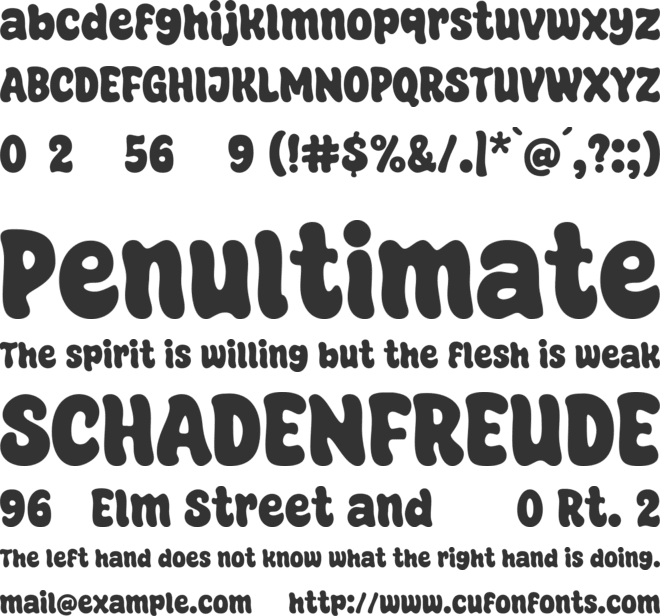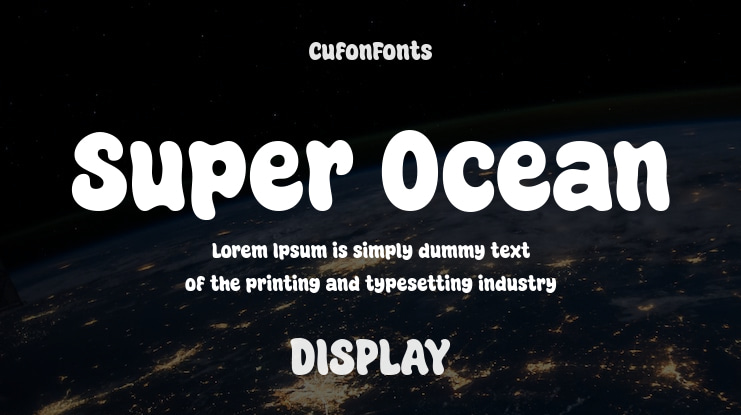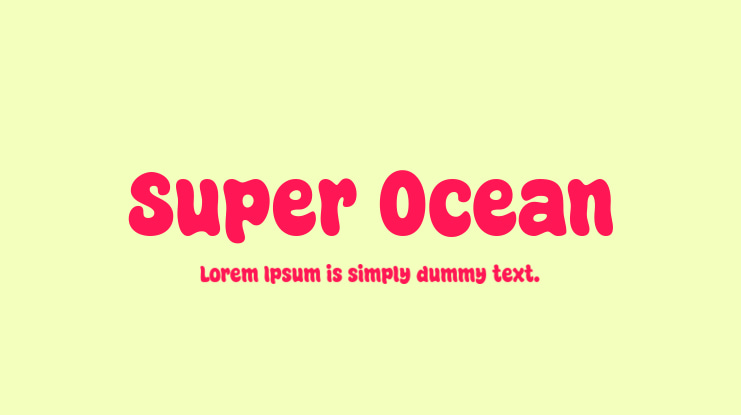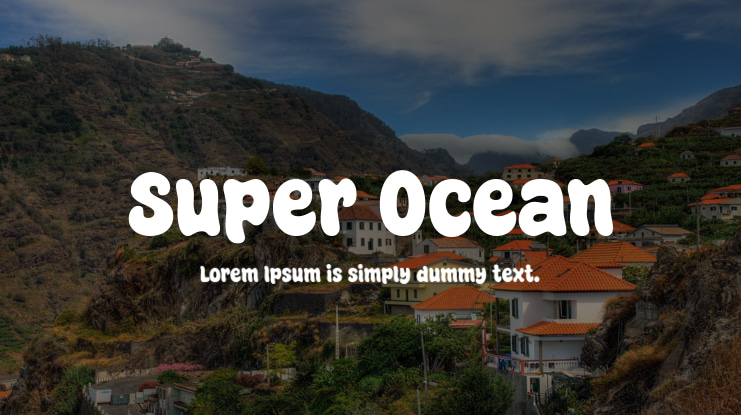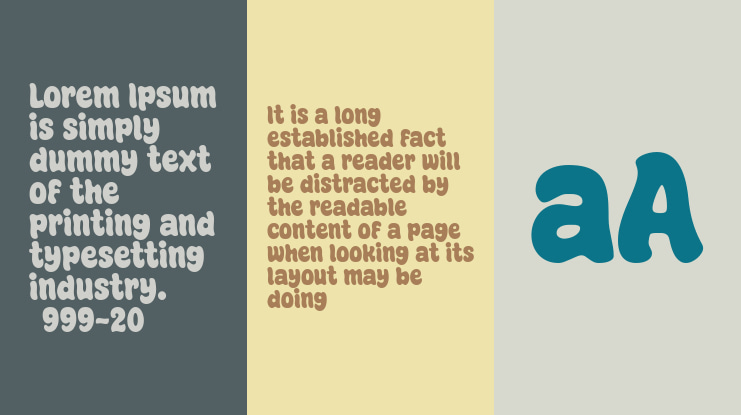
Super Ocean Font
"Super Ocean" is a typeface that captures the relaxed essence of the ocean, encouraging you to explore a realm of effortless sophistication.